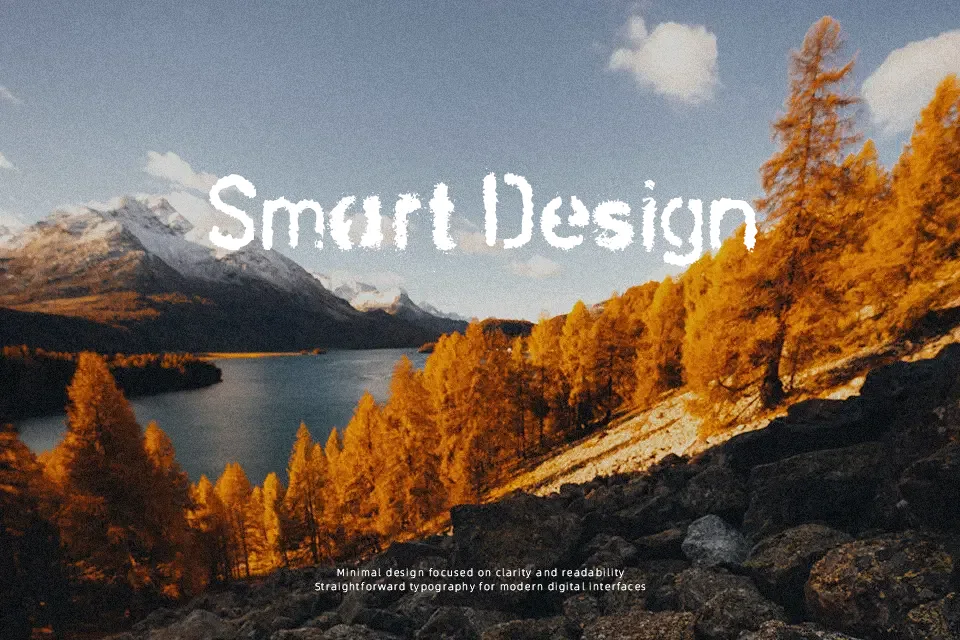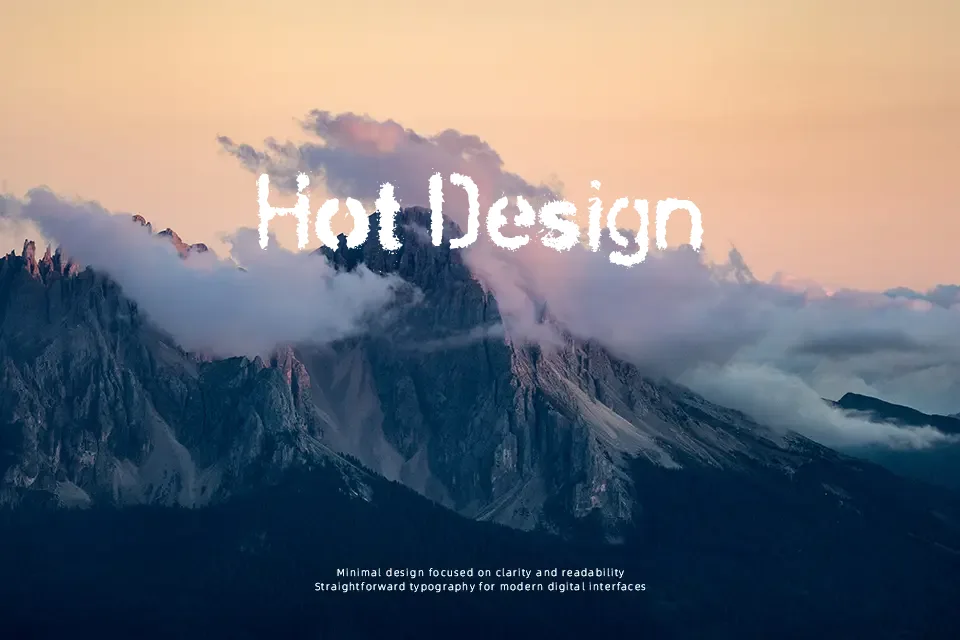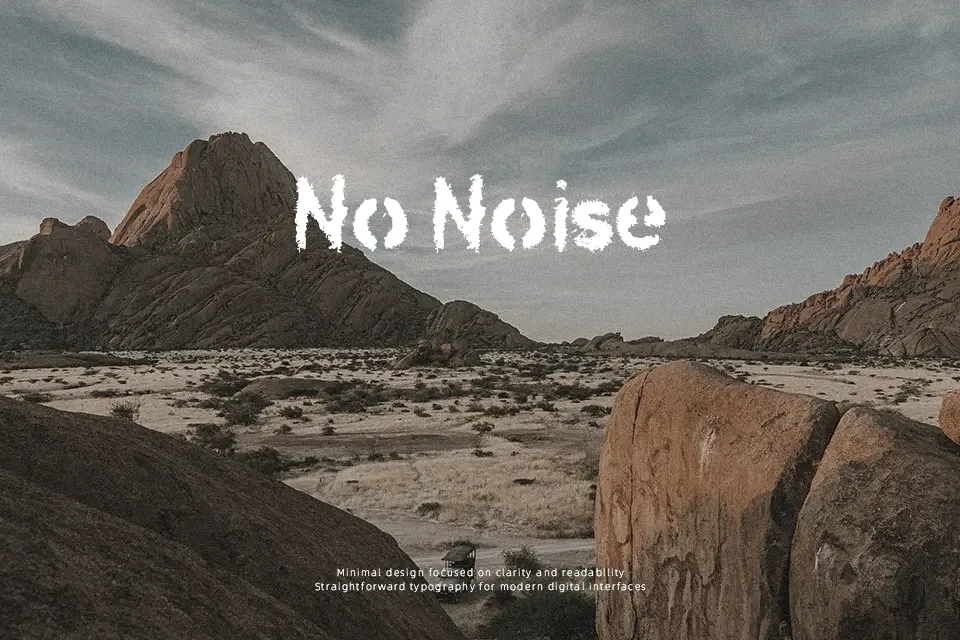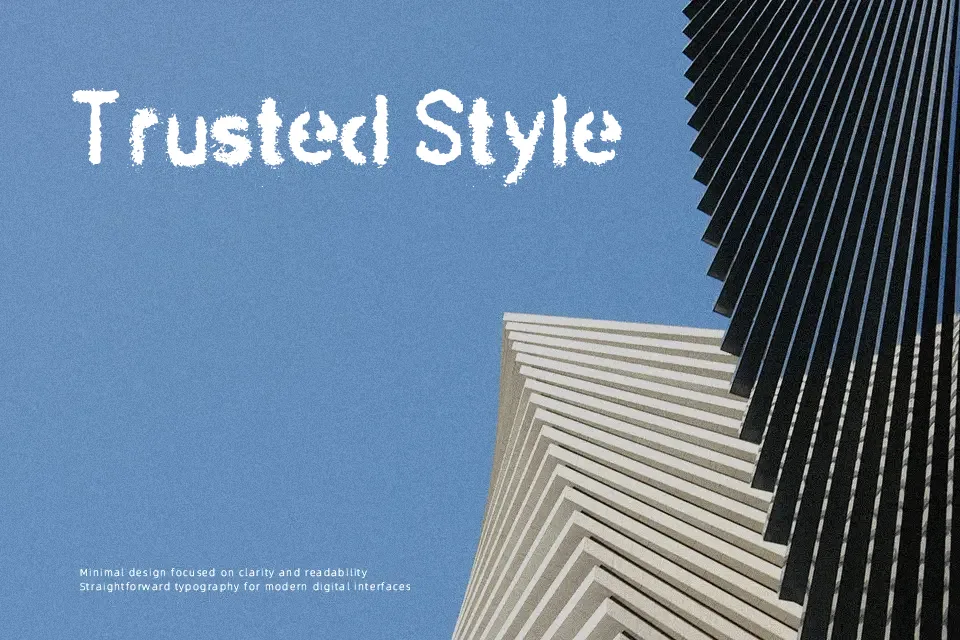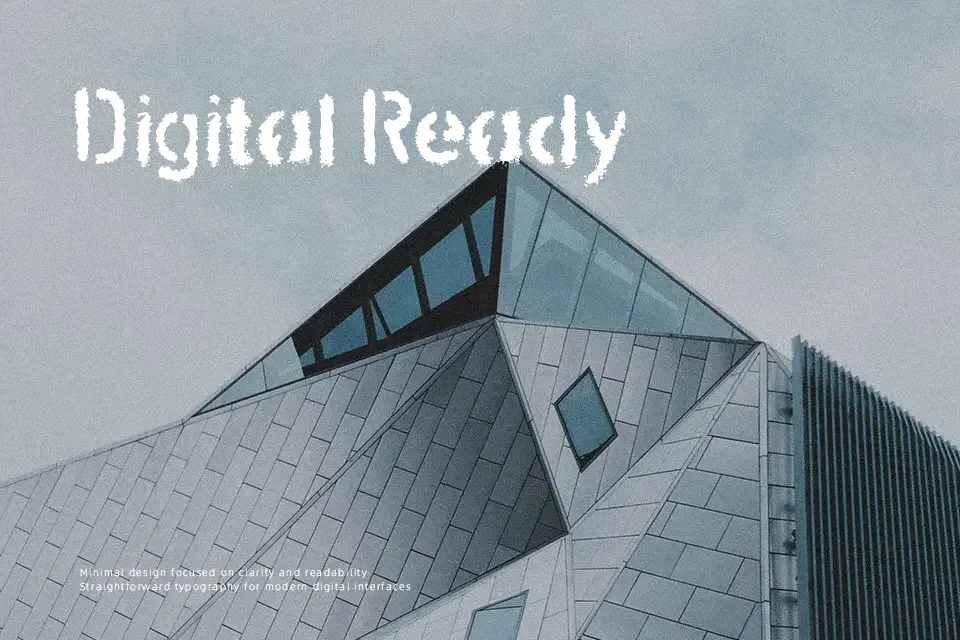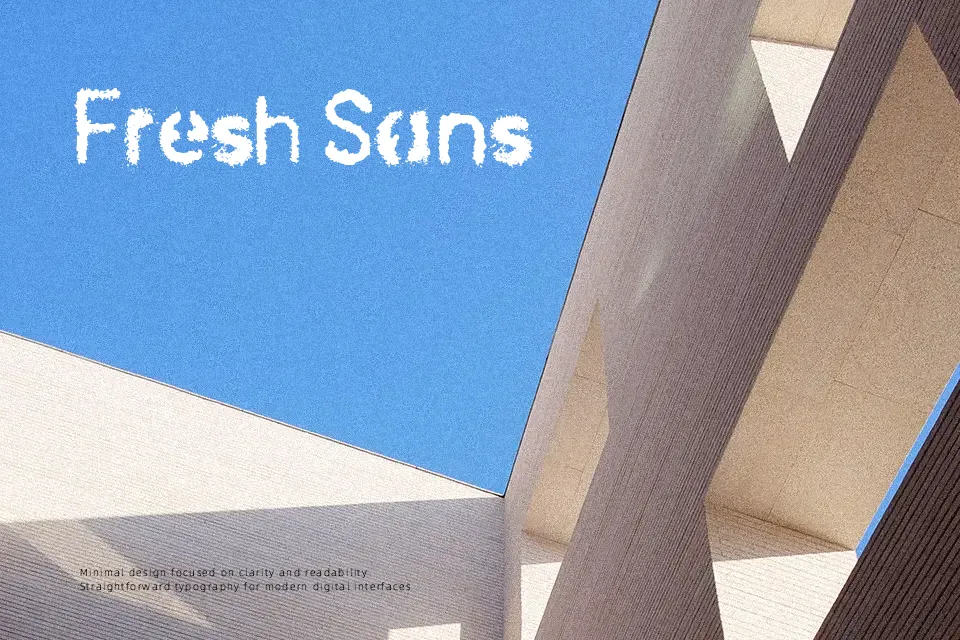
Schablona Dirt Font
Designed by cms TYPE
Schablona Dirt Font features heavy, weathered letterforms defined by fragmented stencil bridges and distressed outer contours. The typeface maintains solid horizontal proportions and generous letter spacing, allowing each character to preserve its rugged silhouette in prominent display settings. Thick strokes provide immediate visual weight across short phrases, military-style labels, and poster headlines. However, the aggressive surface decay and breaks in the letter structure make the design less suitable for continuous body text, as small sizes cause fine erosions to blur together. In practical application, the font excels when treated as a punchy headline centerpiece where distressed textures remain distinct.
– military-themed apparel graphics
– outdoor gear product packaging
– industrial poster headlines
– video game title screens
– continuous body text
– mobile interface captions
– legal document paragraphs
– spreadsheet data entries
Perfect for branding, gaming, and headline, with a bold and decorative style.